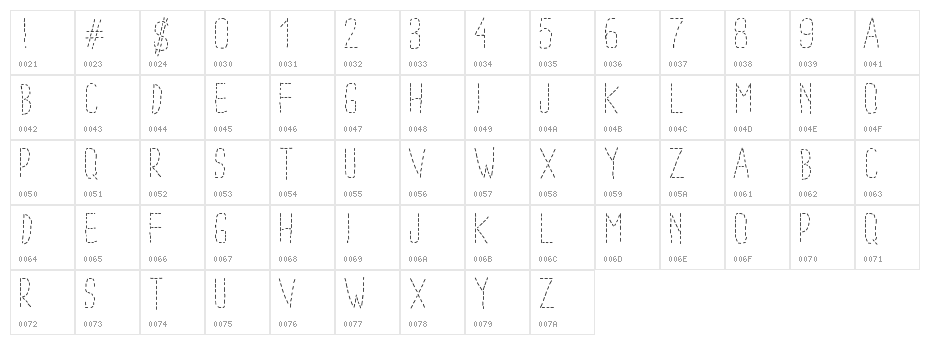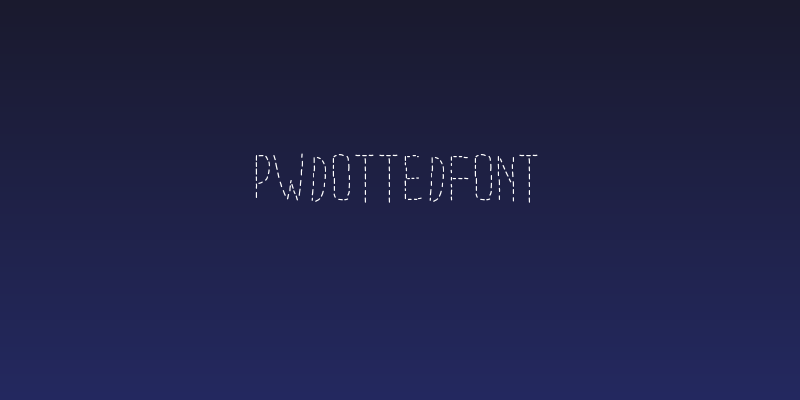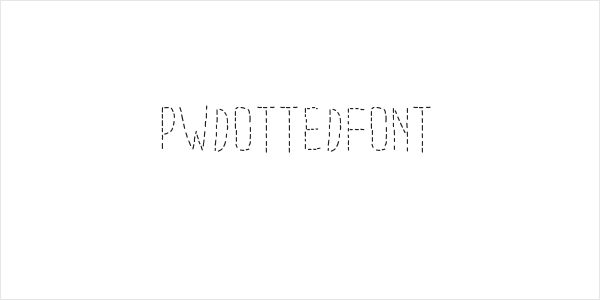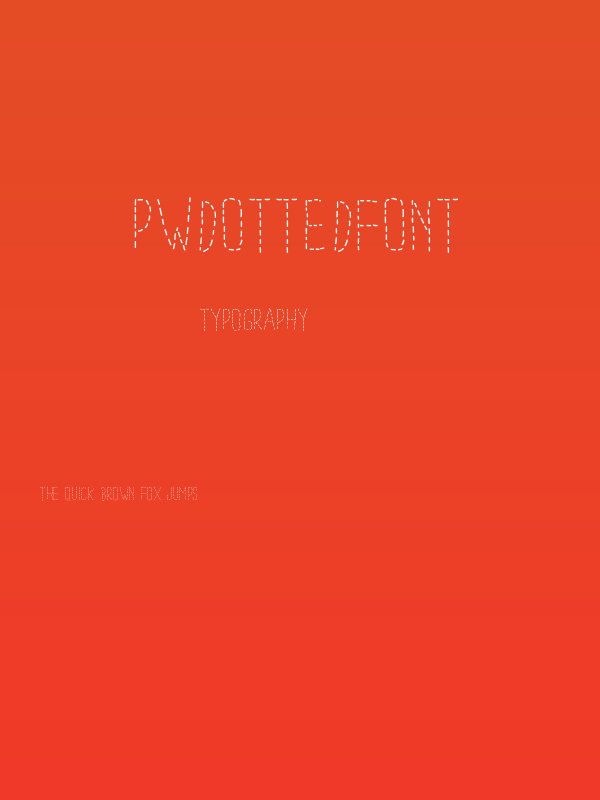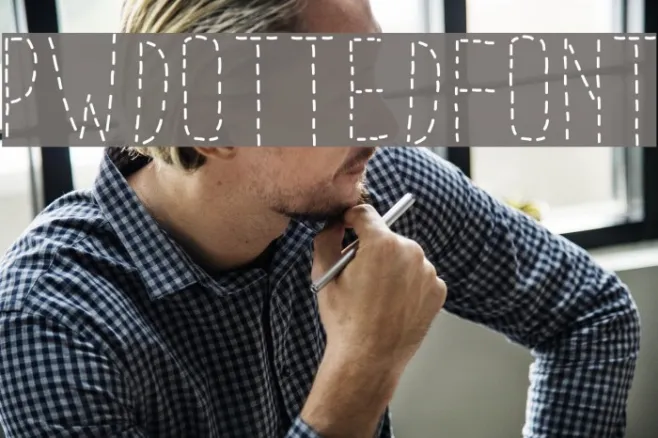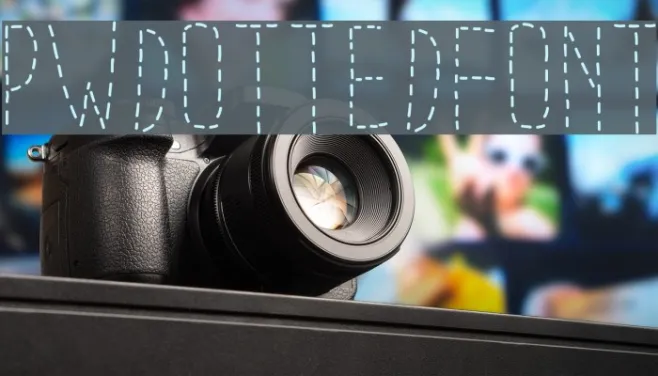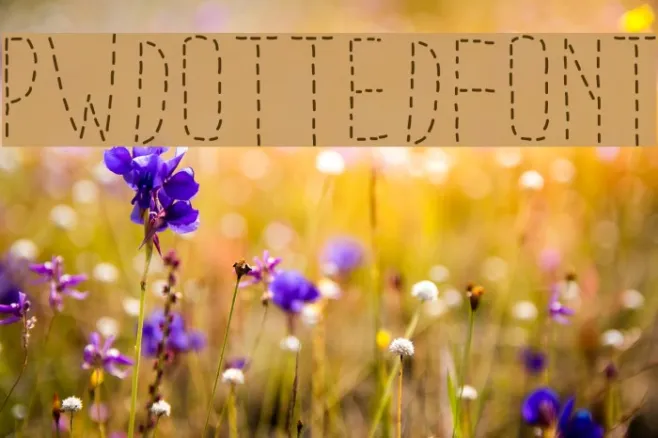
PWDottedFont Font
PWDottedFont Description
This font features a unique dotted design, where each character is composed of evenly spaced dots forming the outlines of letters and numbers. The uppercase and lowercase letters maintain a consistent style, with clean and geometric shapes that are easy to read. The numbers follow the same dotted pattern, ensuring uniformity across all characters. Special characters are also included, adhering to the same dotted style. This font is visually distinct and offers a playful yet structured appearance, making it suitable for creative projects.